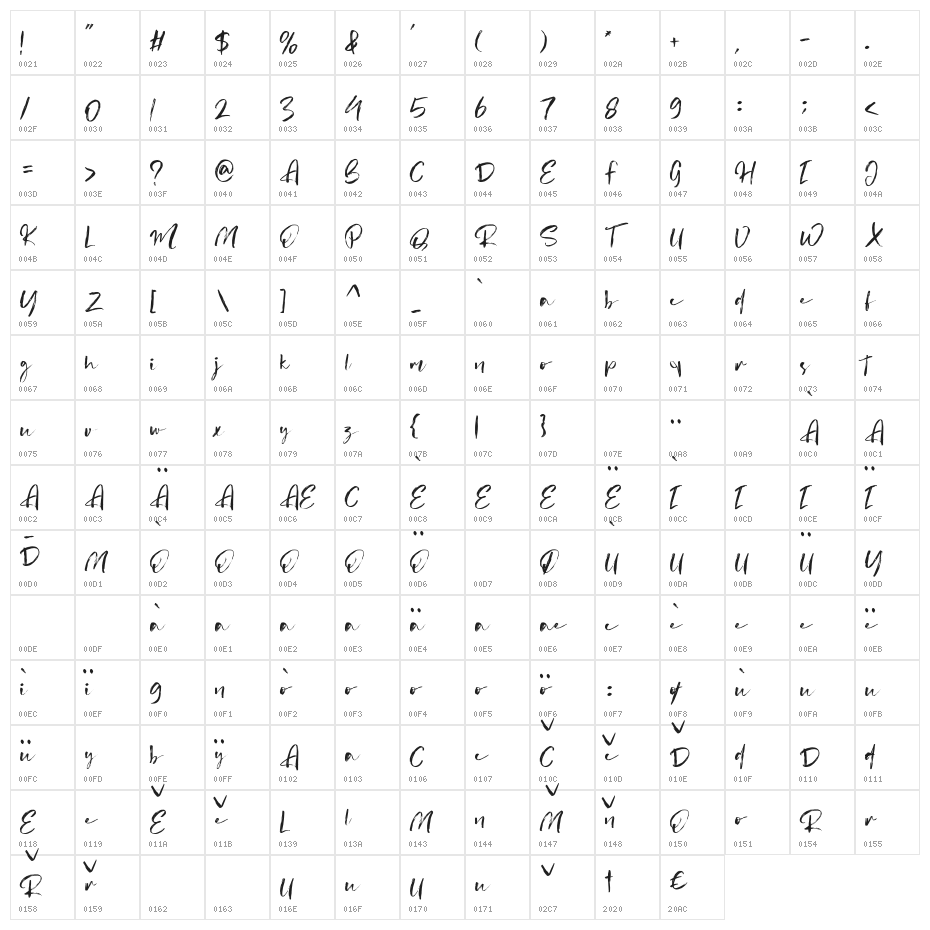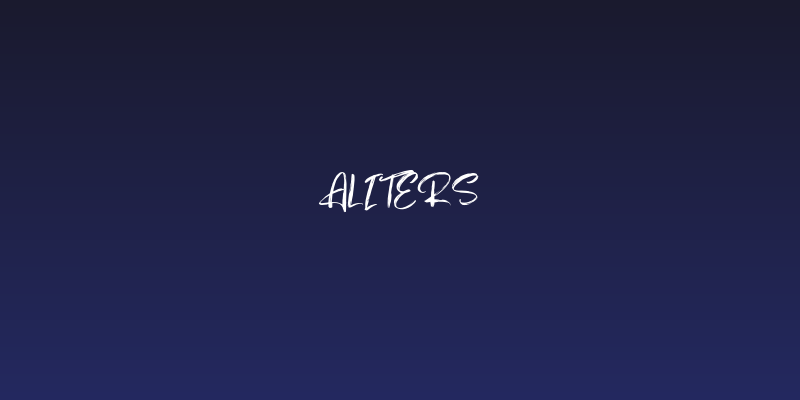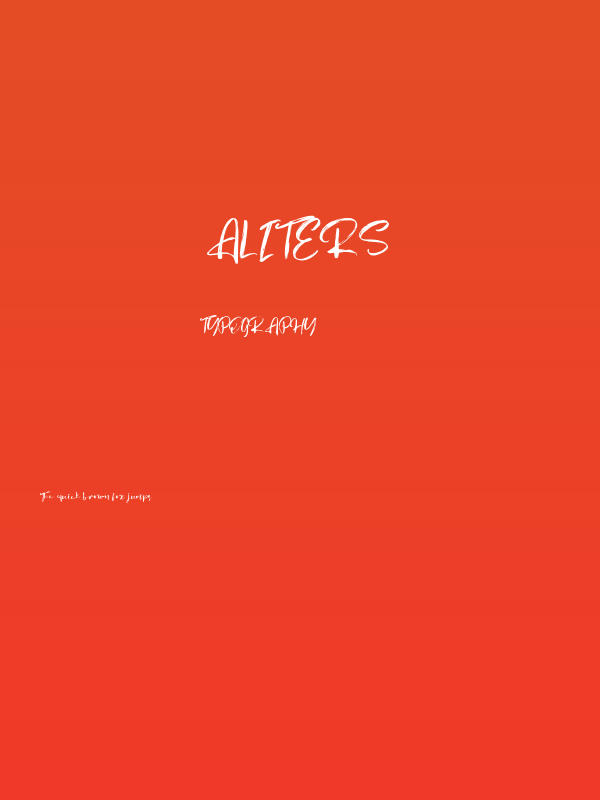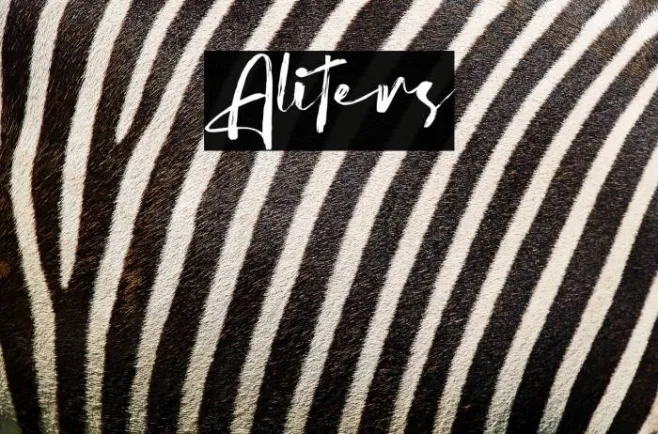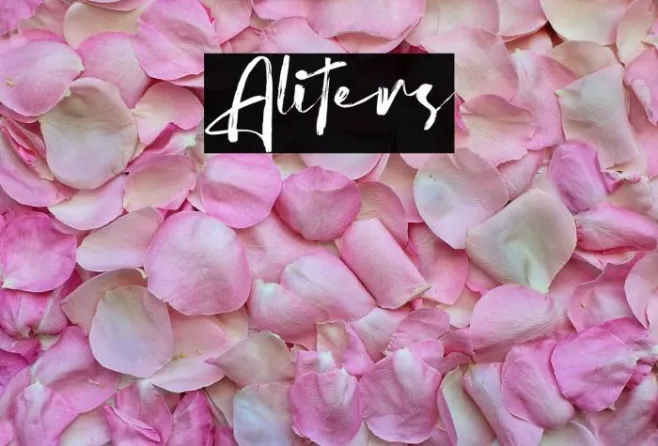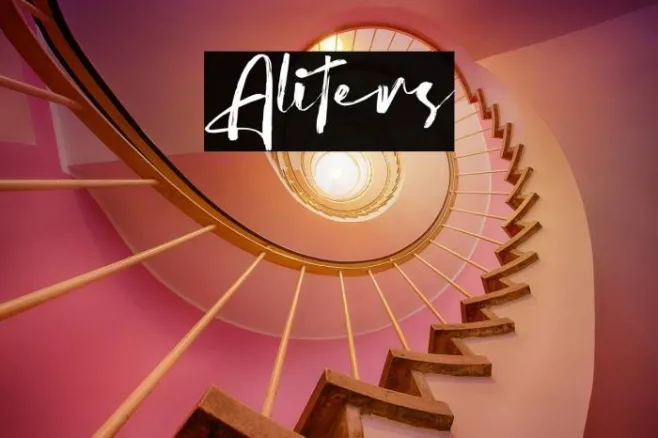
Aliters Font
Aliters Description
This font features a dynamic and expressive handwritten style, characterized by bold, sweeping strokes and a slightly irregular baseline that adds to its organic feel. The uppercase letters are particularly striking, with a sense of movement and flair, while the lowercase letters maintain a consistent flow. The numerals and special characters are equally expressive, maintaining the overall aesthetic. This font exudes a sense of creativity and spontaneity, making it ideal for projects that require a personal touch.
| Proposed Projects | Ideal for branding, invitations, greeting cards, and artistic projects that require a personal and creative touch. |